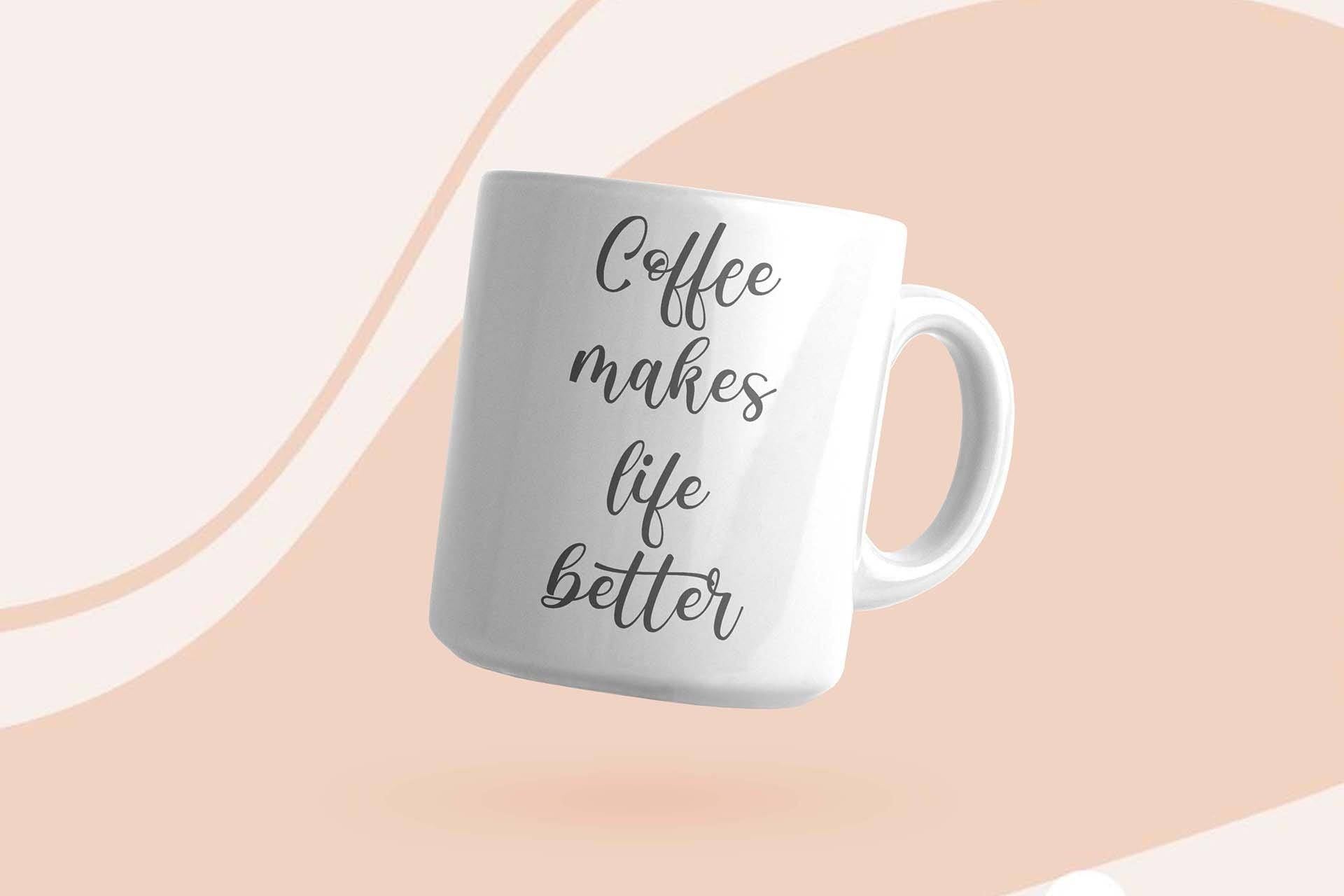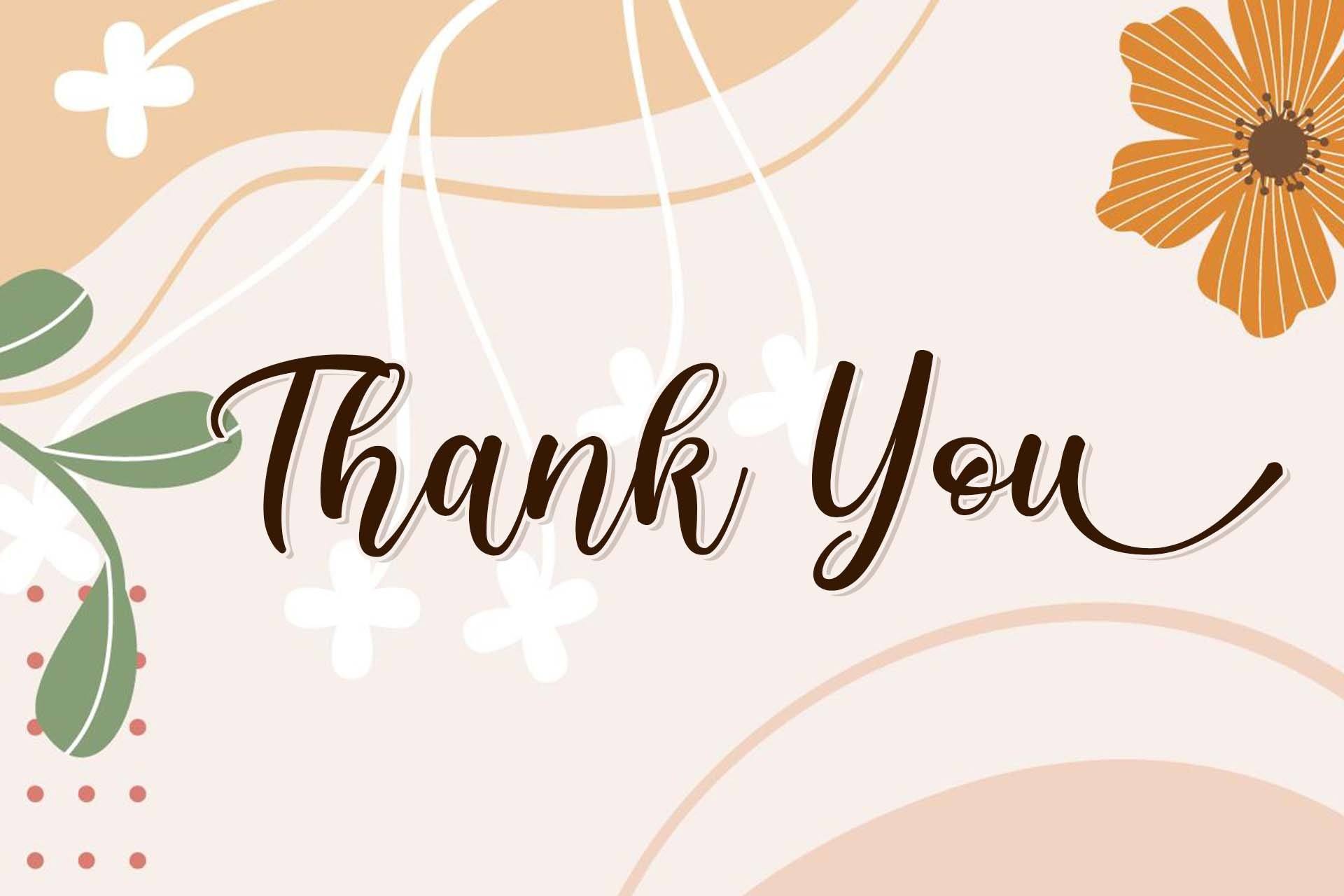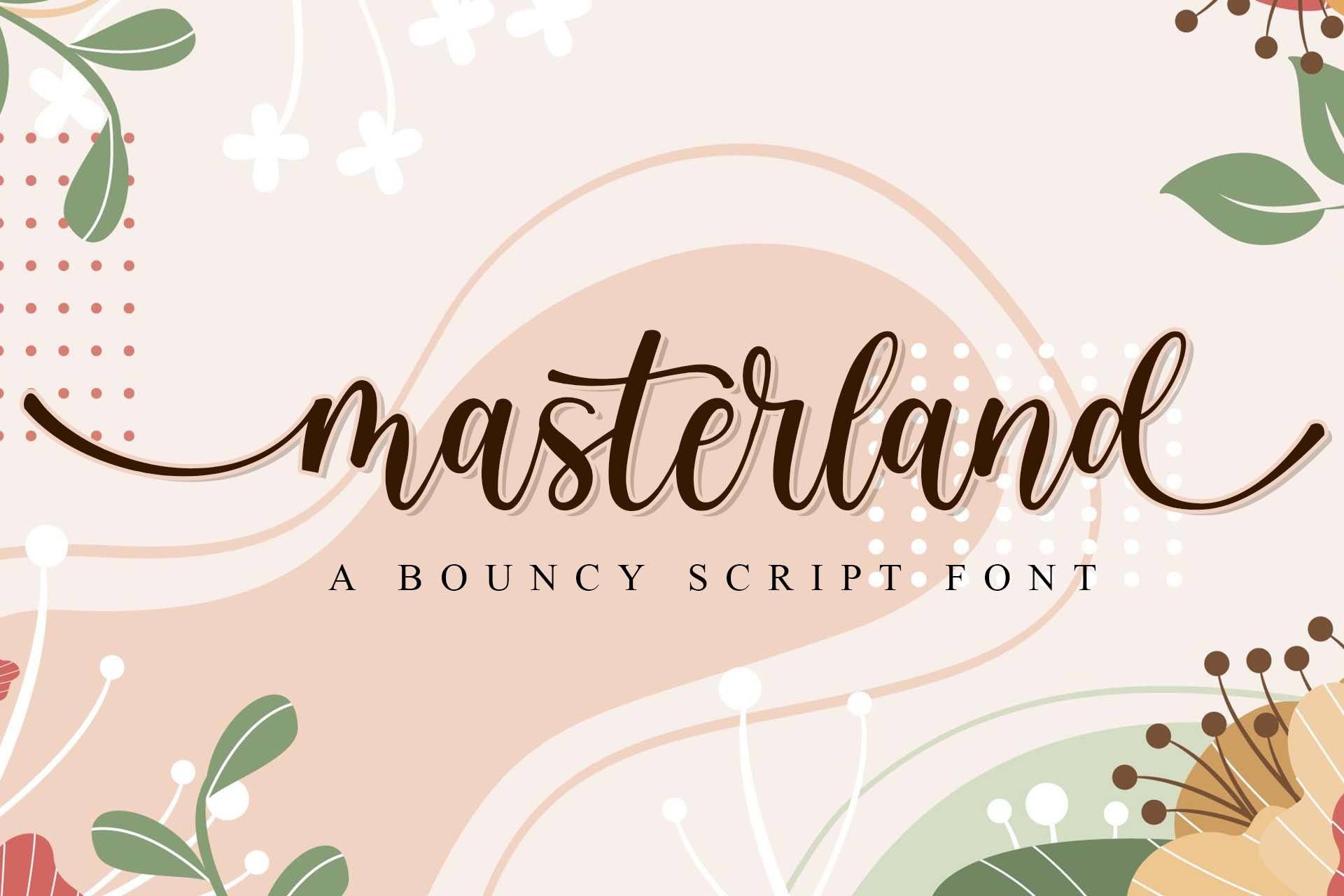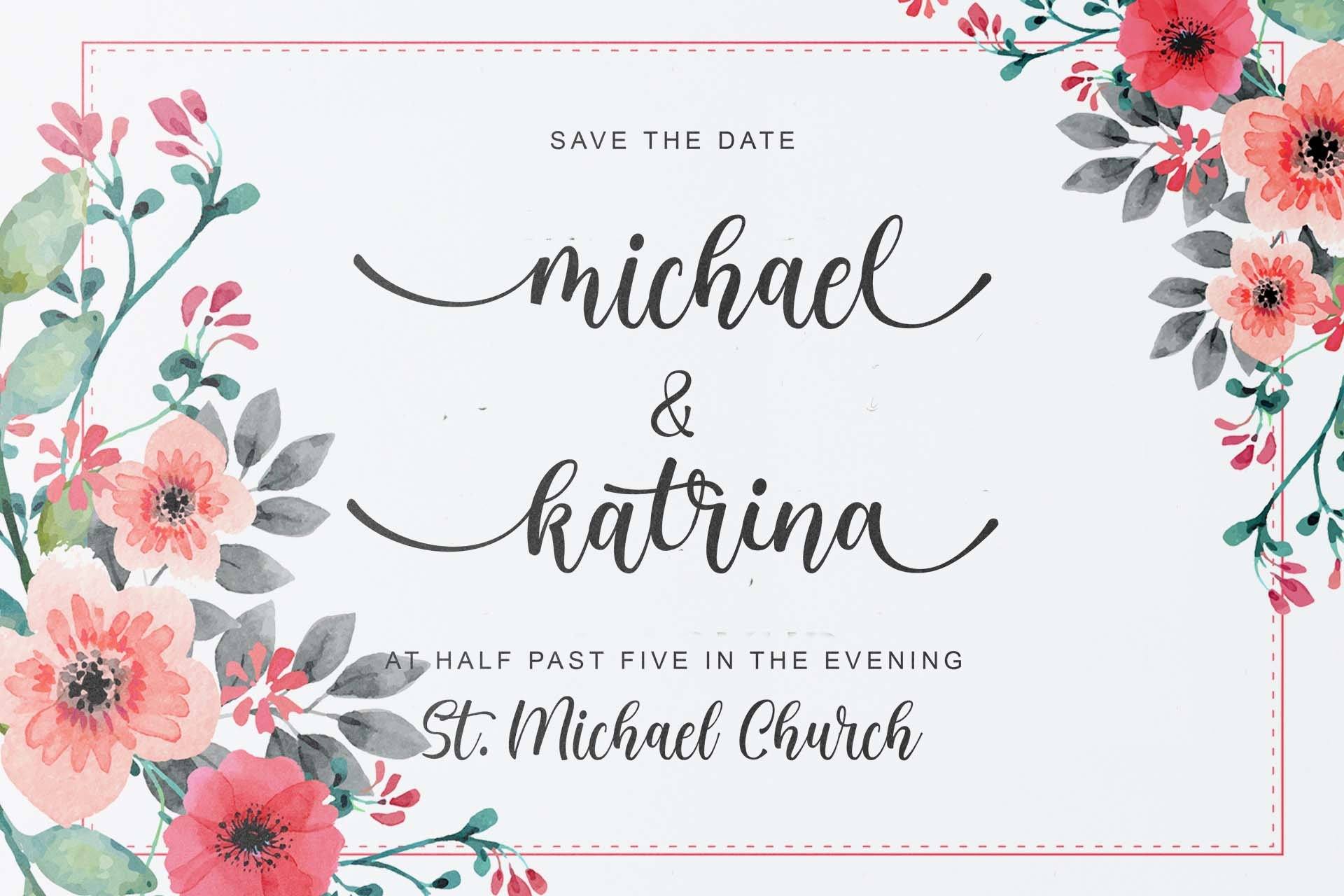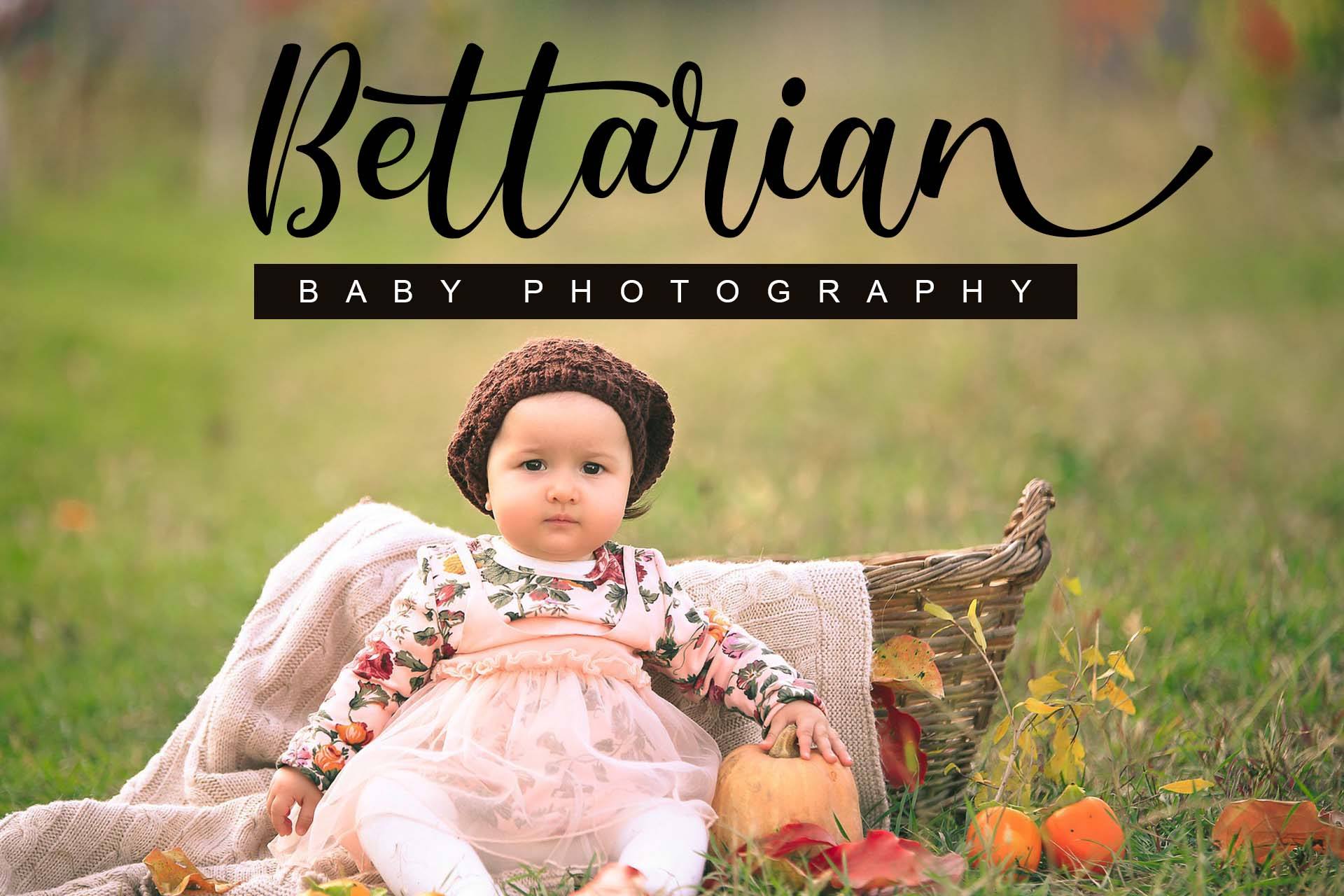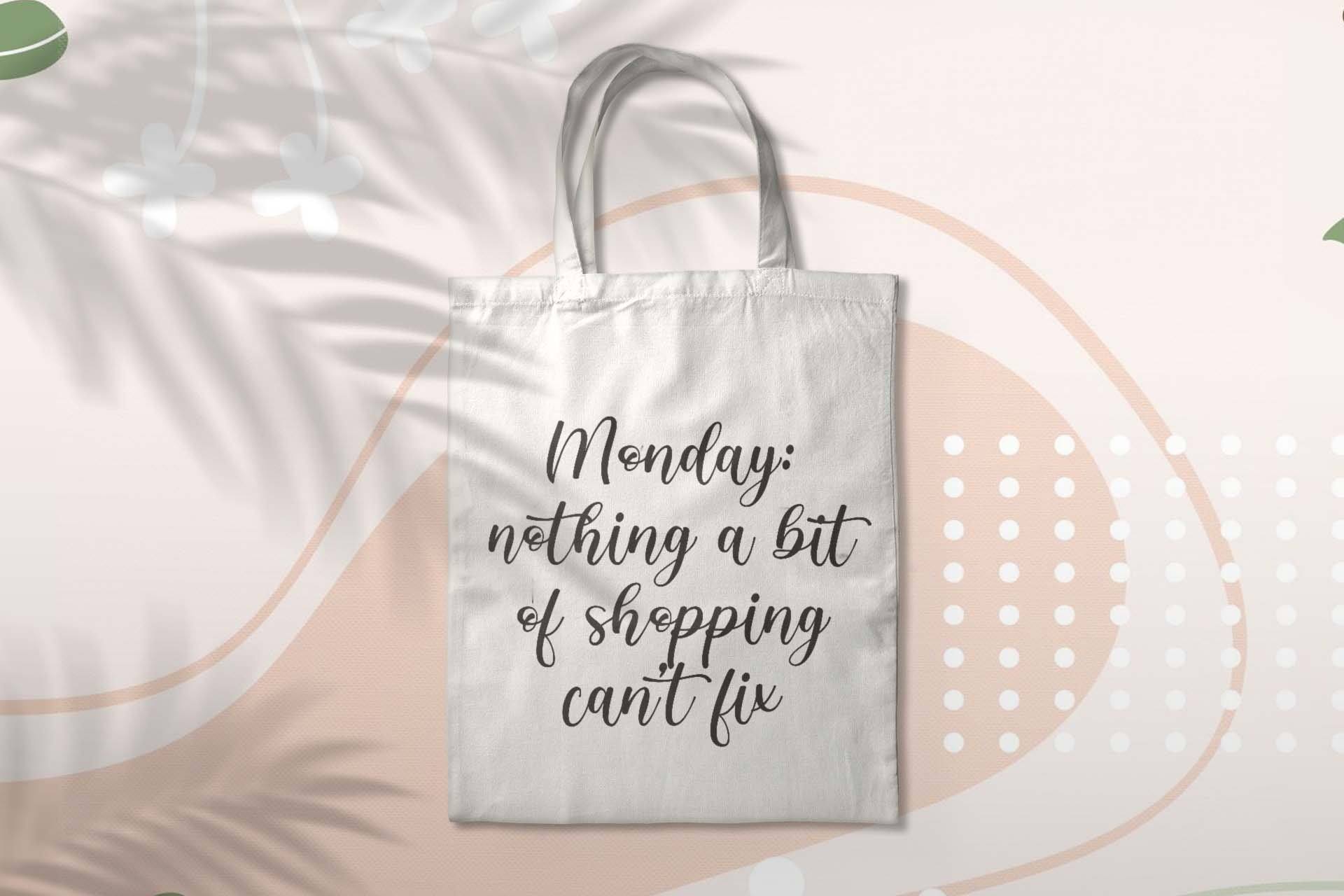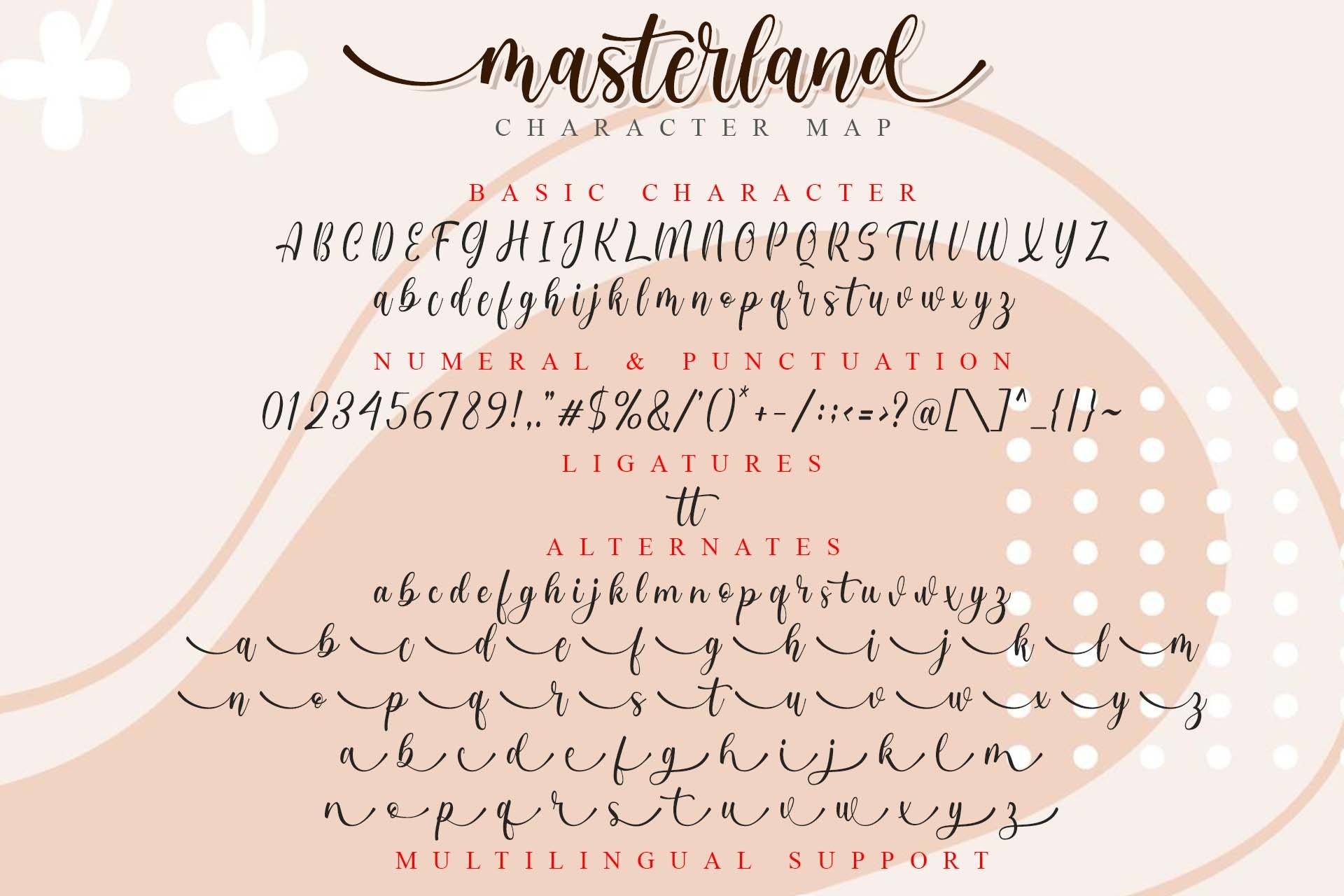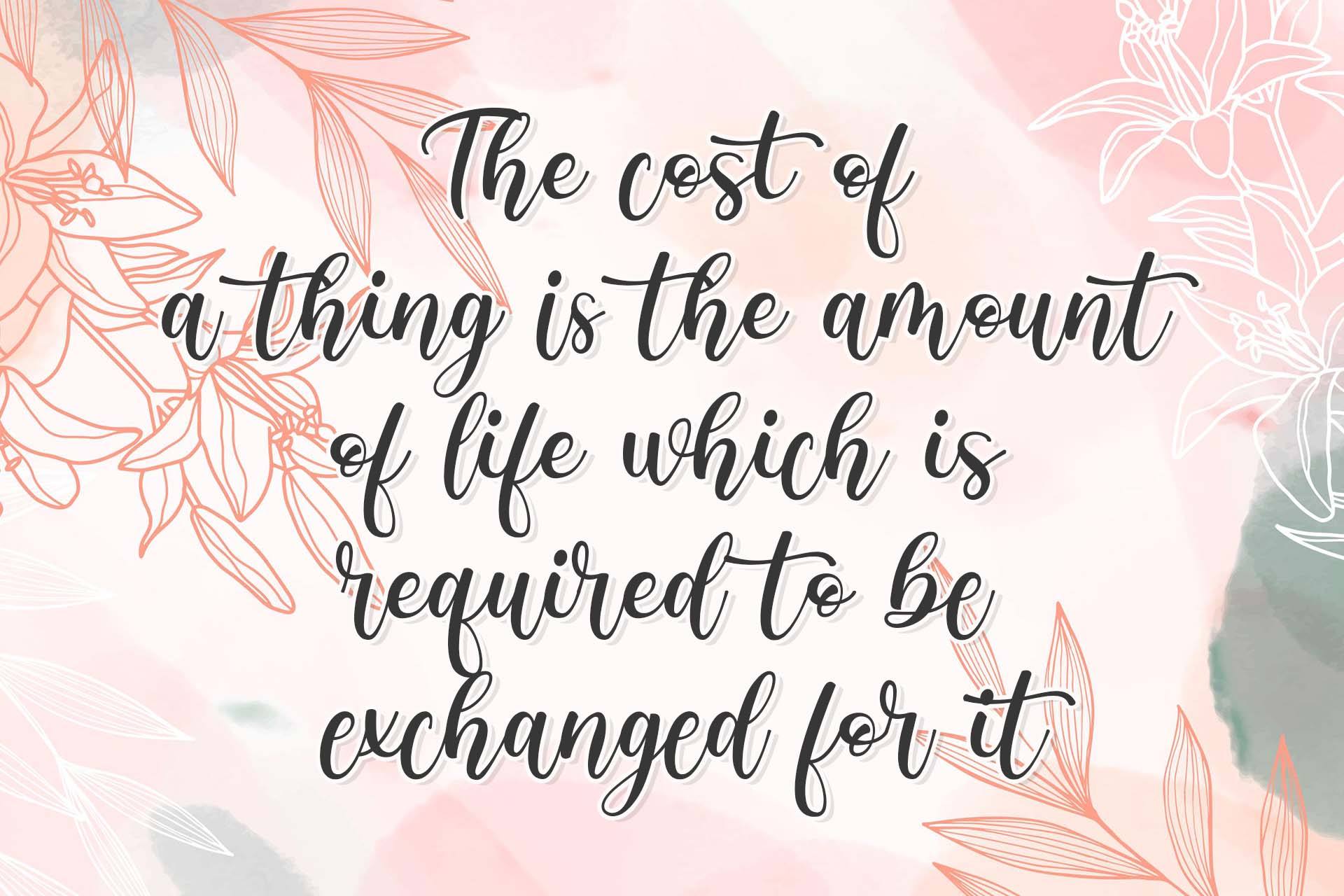
Masterland | Script Font
About Masterland | Script Font
Introducing our latest product, Masterland, a bouncy script font. This font is very suitable for use in various designs such as mug designs, totebags, wedding invitation cards, t-shirt designs, product logos, or just to be used as quotes, of course it is very suitable. Thank You